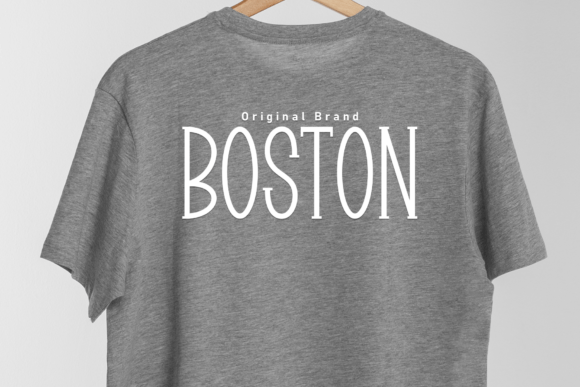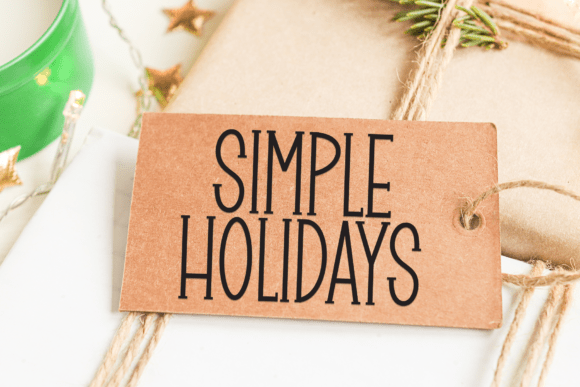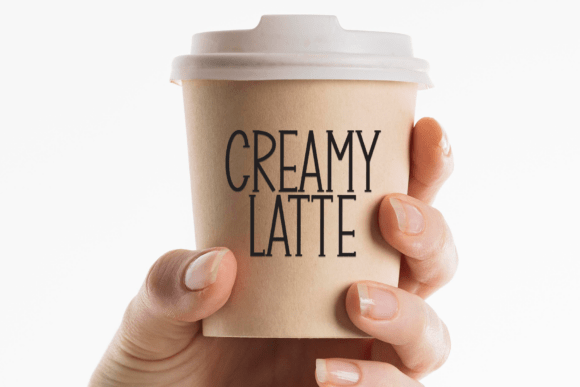
Introduction to Beauty Honey Font
Immerse yourself in the charming allure of our handwritten display font – a delightful fusion of sweetness and friendliness.
Perfectly suited to grace your wedding invites and delightful cards, this adorable, light-hearted typeface infuses a whimsical, enjoyable touch to any design you craft Indulge in this font’s fun nuances and give your creations the playful edge they deserve.
Key Features of Beauty Honey Font
Why Choose Beauty Honey Font?
Beauty Honey Font offers exceptional quality and versatility, making it a valuable addition to your design toolkit. Whether you’re creating for personal projects or commercial use, Beauty Honey Font delivers professional results.